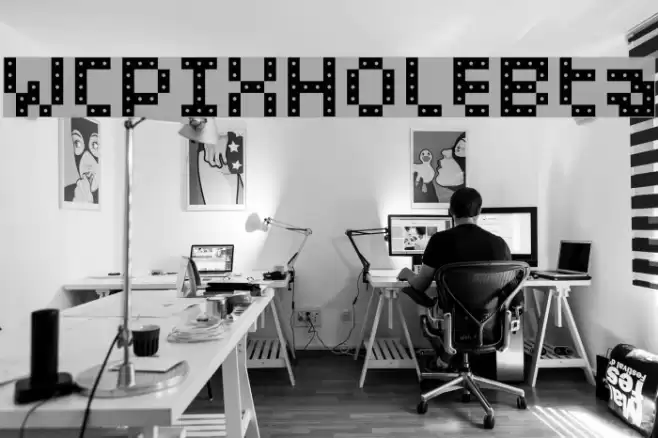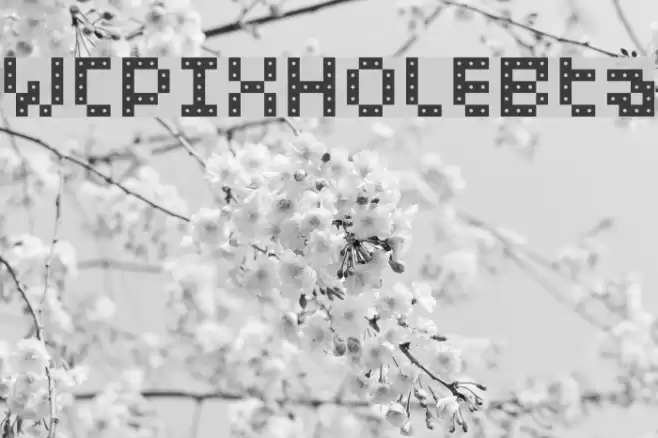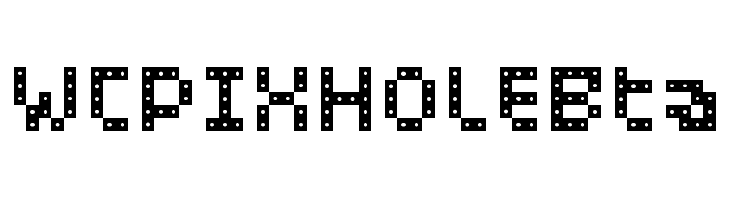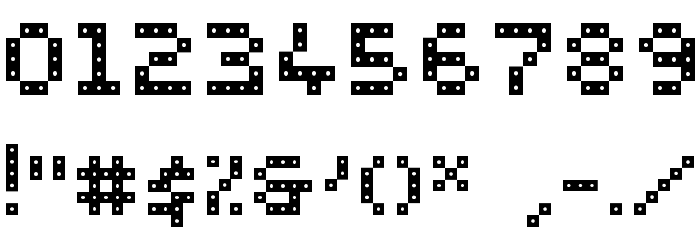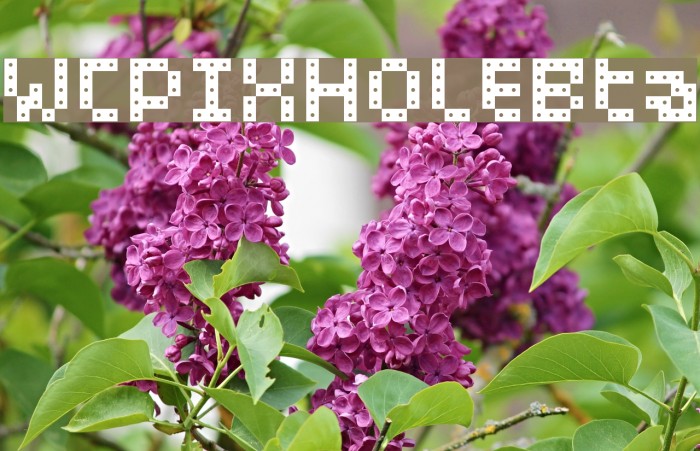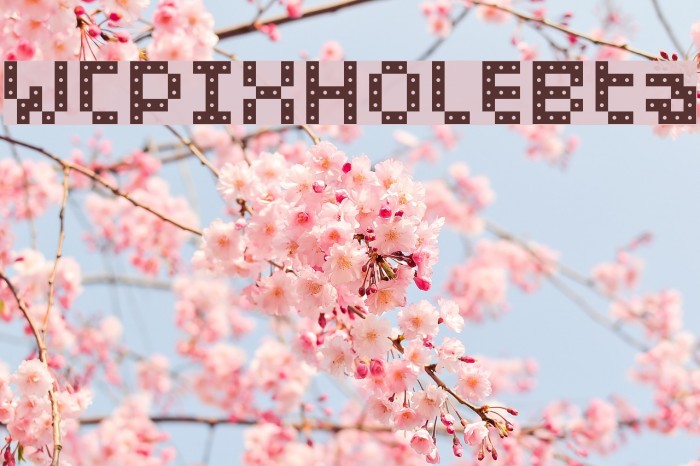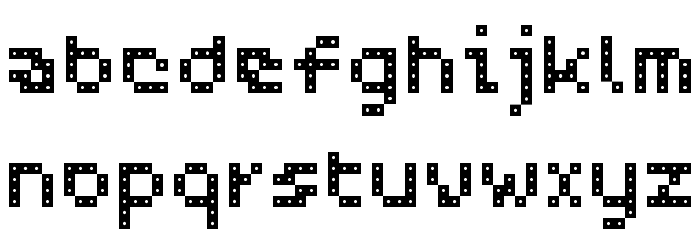
WCPIXHOLEBta Font
This font features a unique, playful design with characters composed of a grid-like pattern filled with small dots. Each letter and number is formed by a series of squares, giving it a pixelated appearance reminiscent of retro digital displays or dot matrix printers. The uniformity of the dots creates a consistent texture across all characters, making it visually striking and easily recognizable. The font maintains a monospaced structure, ensuring each character occupies the same horizontal space, which enhances its orderly and mechanical feel. This style is ideal for projects that aim to evoke a sense of nostalgia or a digital, tech-inspired aesthetic.
A playful, pixelated font with a dot matrix style, ideal for retro digital themes from Futuristic fonts.
- Proposed Projects: Perfect for video game designs, tech-themed posters, digital art projects, and retro-style branding.
- Overall Style: Retro, Digital
- Use Case: Logos, Posters, Digital Art